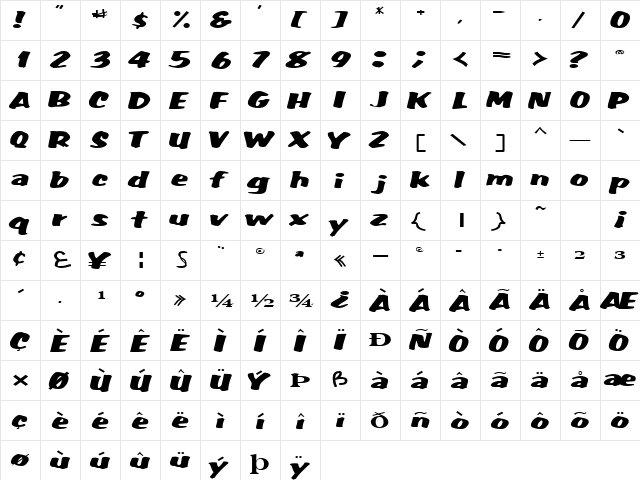
FatBackPlus14 Regular Font Preview
FatBackPlus14 Regular
FatBackPlus14 Regular Font Details
Design Context for FatBackPlus14 Typeface
FatBackPlus14 is a composed and adaptable typeface that performs quietly and consistently across a wide range of design contexts.